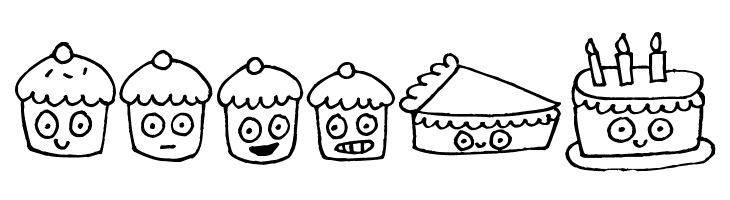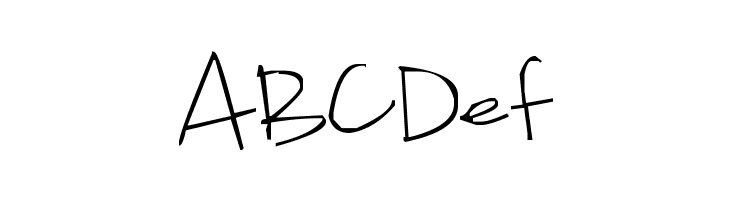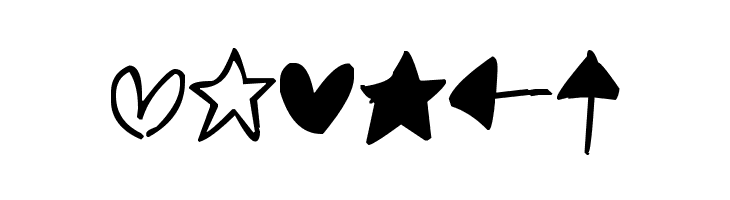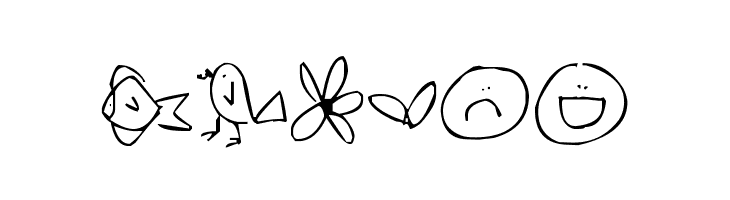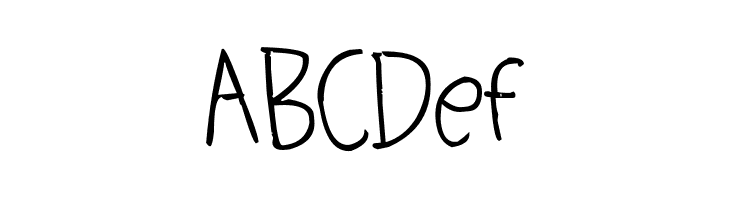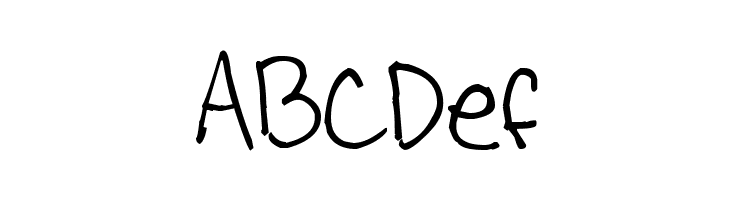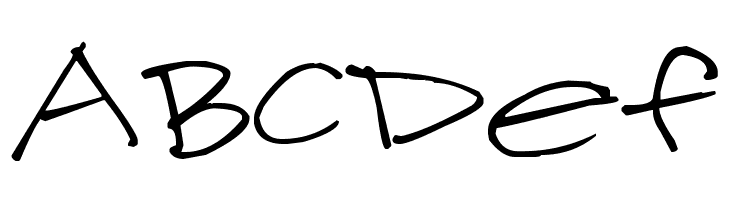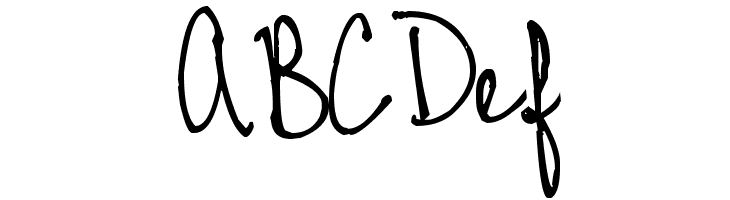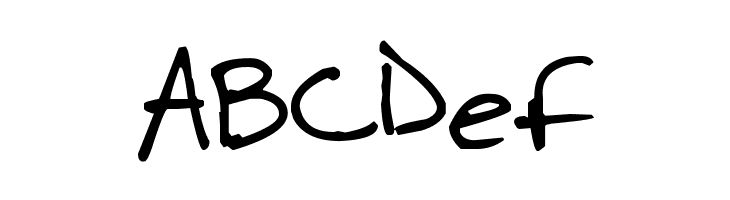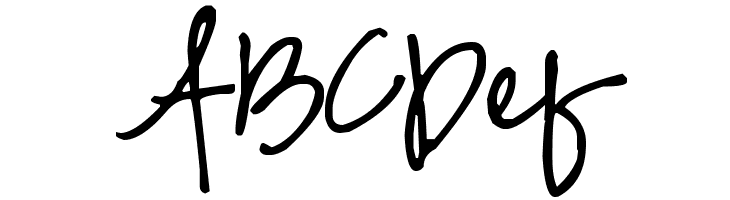
A casual, playful handwritten font with loose, flowing strokes.
A playful, casual handwritten font with irregular strokes and a natural flow.
A casual, handwritten font with a playful and energetic style.
A playful, handwritten font with a casual and informal style.
A playful, handwritten font with a casual and dynamic style.
A casual, playful handwritten font with a dynamic and informal style.
A bold, handwritten script font with a casual and playful style.
A playful, handwritten font with a casual, cursive-like style.
A whimsical collection of playful doodle-style illustrations.
A playful, casual handwritten font with lively, uneven strokes.
A playful, casual handwritten font with a personal touch.
A playful, casual handwritten font with a friendly and dynamic appearance.
A playful, casual handwritten font with fluid strokes and a lively appearance.
A bold, playful handwritten font with expressive strokes and a casual feel.
A casual, handwritten font with a playful and informal style.
A playful, casual handwritten font with irregular strokes and a personal touch.
A playful and whimsical collection of hand-drawn doodles with bold strokes.
A playful, casual handwritten font with fluid, slightly irregular strokes.
A playful, casual handwritten font with irregular strokes.
A playful, handwritten script with fluid, connected strokes.
A playful, casual handwritten font with irregular strokes and a whimsical style.
A whimsical doodle font with playful, hand-drawn elements and a casual, sketch-like style.
A playful, handwritten font with a casual and dynamic style.
A playful and informal handwritten font with a casual, dynamic style.
A playful, casual handwritten font with a natural, informal style.
A whimsical, hand-drawn doodle font with playful sketches and irregular characters.
A playful, handwritten font with a casual and informal style.
A casual, handwritten font with a playful and dynamic style.
A playful, casual handwritten font with irregular strokes and a lively feel.
A playful, casual handwritten font with bold, uneven strokes.
A playful, handwritten font with a whimsical and informal style.
A playful, informal handwritten font with smooth, fluid strokes.
A playful, handwritten-style font with smooth, fluid strokes and a casual appearance.